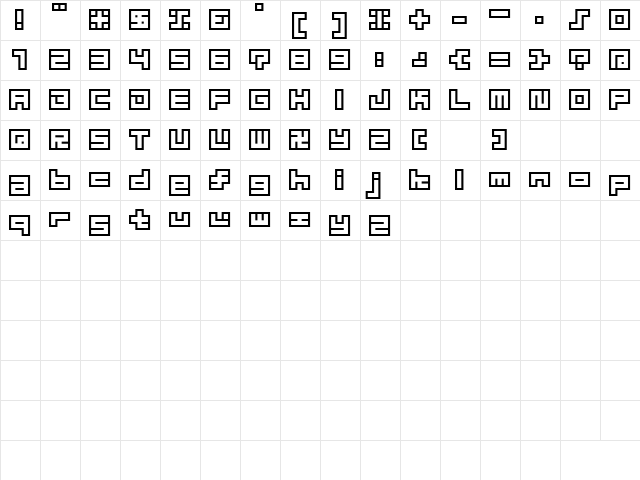
D3 Superstructurism Outline Regular
Design Context for D3 Superstructurism Outline Typeface
D3 Superstructurism Outline is built around its visual character rather than neutral utility — its distinctive forms are designed to make an impression at display sizes.
Font Pairing: Pair with a clean neutral sans-serif for body copy to let D3 Superstructurism Outline's character lead without overwhelming the composition.
Pro Tip: Treat D3 Superstructurism Outline as the centrepiece of your typographic hierarchy. One strong heading set in a decorative face can carry an entire layout.